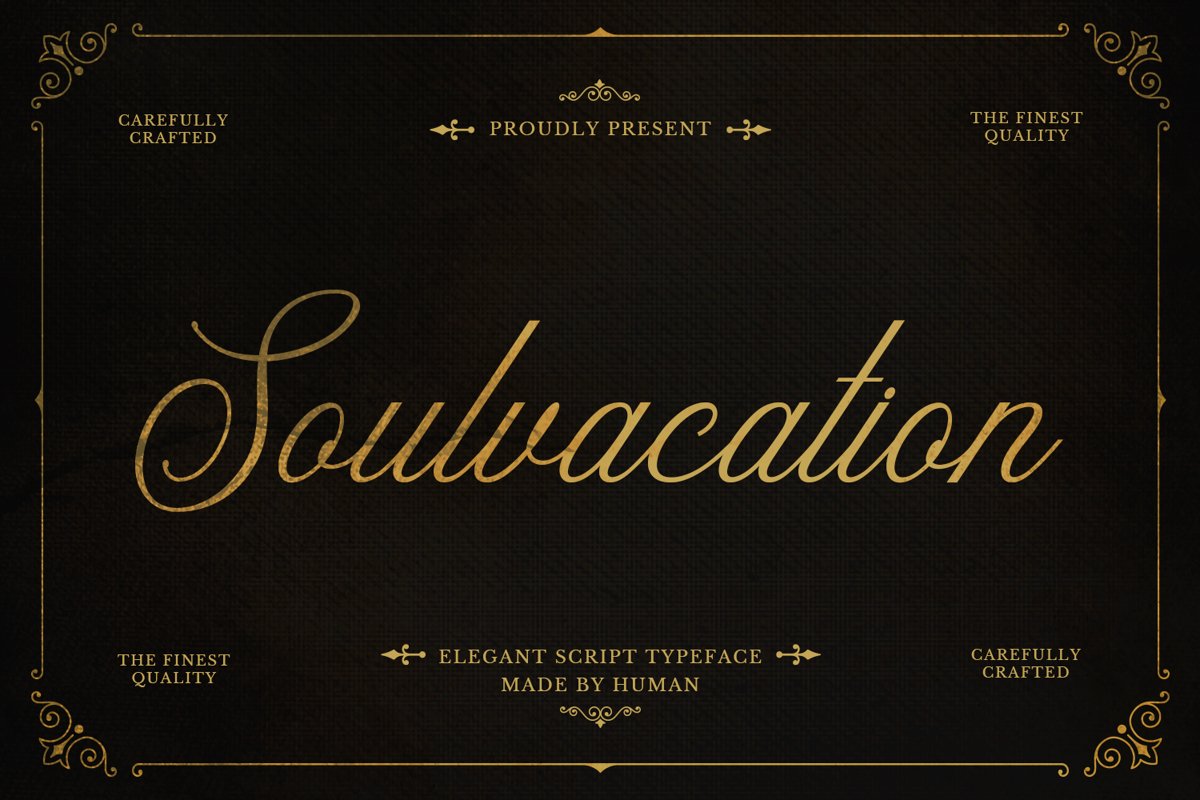
Soulvacation is an elegant script typeface. Perfect for display, logo, logotype, branding, packaging, merchandise, quotes, poster, t-shirt, wedding needs and many more.